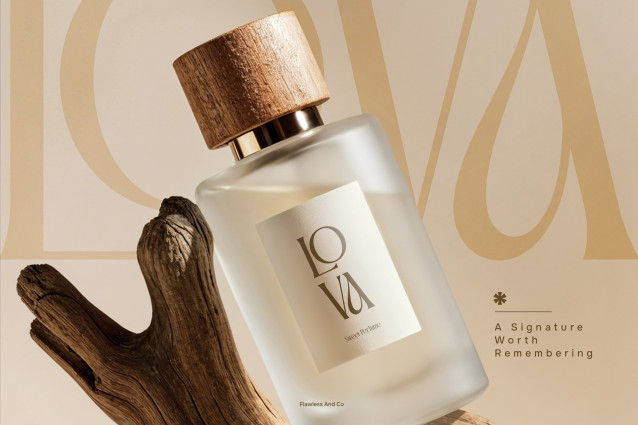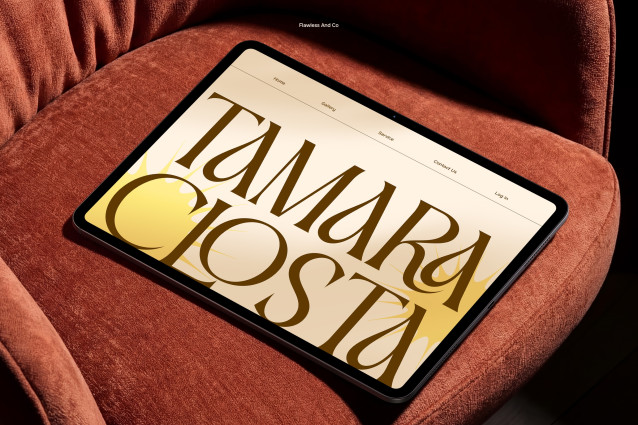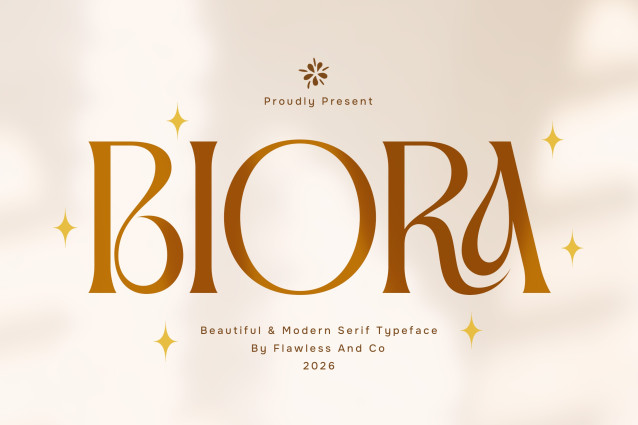
Biora – Elegant Serif Display Font
Biora is a modern elegant serif display font designed to bring sophistication, beauty, and a refined editorial character to your typography. Featuring graceful curves, elegant serifs, high-contrast strokes, and beautifully balanced proportions, Biora creates a polished and luxurious impression in every design.